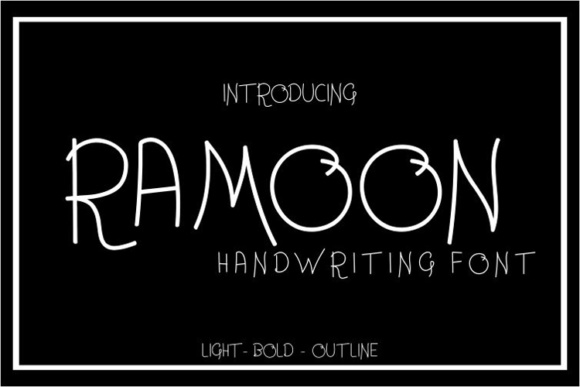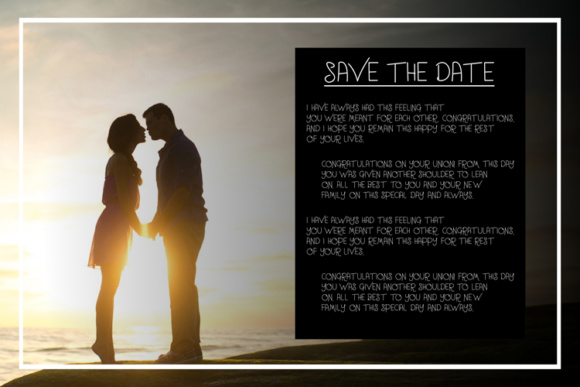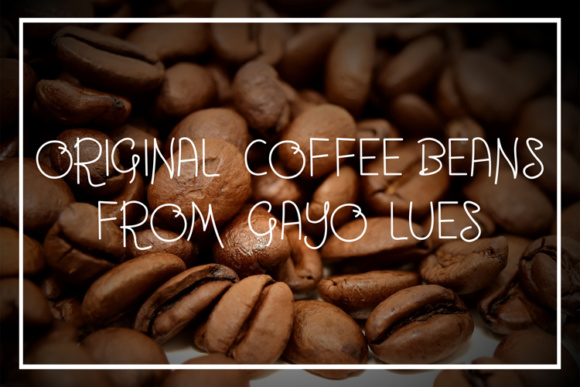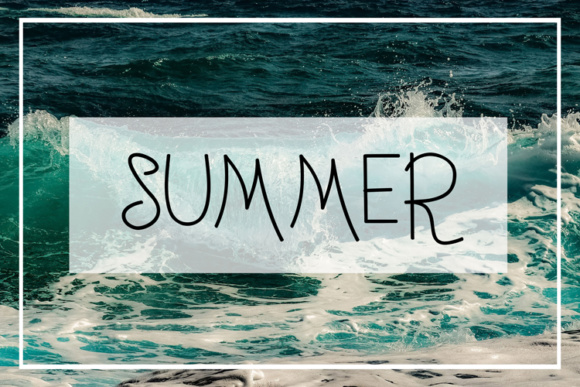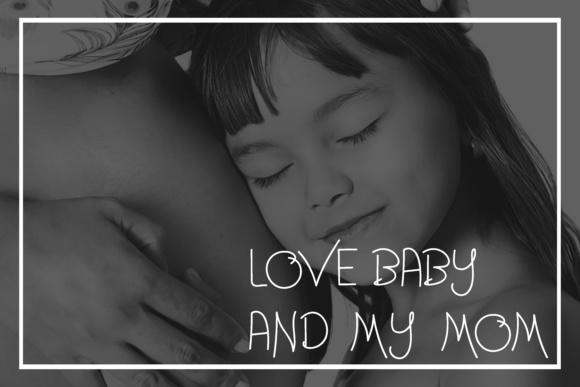
Ramoon Font
About Ramoon Font
Ramoon is a unique, cool and modern handwritten font. Its original style makes it perfect for various design projects such as: logos, signatures, labels, packaging designs, blog headlines and much more! Ramoon comes in in light and a bold version.